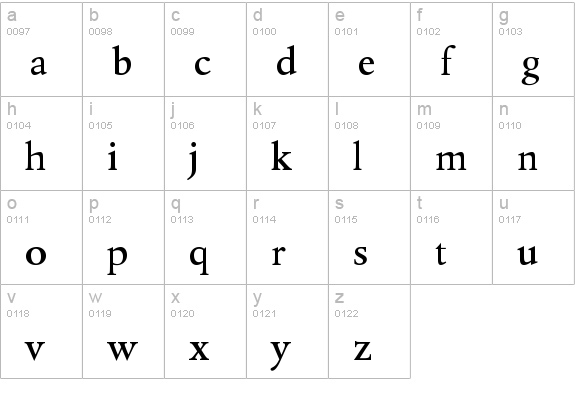
DTLAlbertinaST-Medium is a balanced, medium-weight variant in the DTLAlbertinaST typeface family \xE2\x80\x94 well suited to sub-headlines, navigation, and balanced editorial work.
The DTLAlbertinaST-Medium font is a modern and versatile typeface that exudes sophistication and elegance. Its medium weight makes it perfect for various design projects, from branding to editorial design. This font features clean lines and a balanced design, making it easy to read while still maintaining a sense of style. What sets DTLAlbertinaST-Medium apart is that it is available for free download at FontsMarket.com. This means you can easily access and use this beautiful font in your projects without any cost. Whether you're working on a website, poster, or logo design, DTLAlbertinaST-Medium is a fantastic choice that will elevate your work with its timeless appeal. Download it today and add a touch of class to your designs.